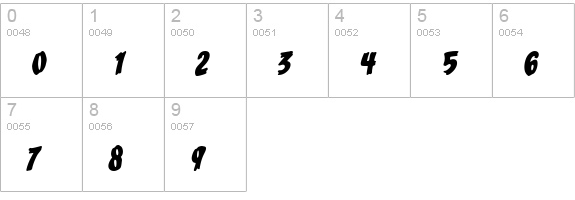
Bucket O Blood Italic Font Details
Bucket O Blood Italic is a distinctive, italic variant in the Bucket typeface family \xE2\x80\x94 well suited to design and typography projects.
Introducing Bucket O Blood Italic font, a unique and edgy typeface that exudes a sense of mystery and intrigue. This font is perfect for projects that require a touch of sophistication combined with a hint of darkness. The italic style adds a dynamic flair to your designs, making them stand out from the crowd. The best part? Bucket O Blood Italic font is available for free download at FontsMarket.com. With its sleek and modern design, this font is a must-have for any designer looking to make a bold statement. Add a touch of sophistication to your projects with Bucket O Blood Italic font today!